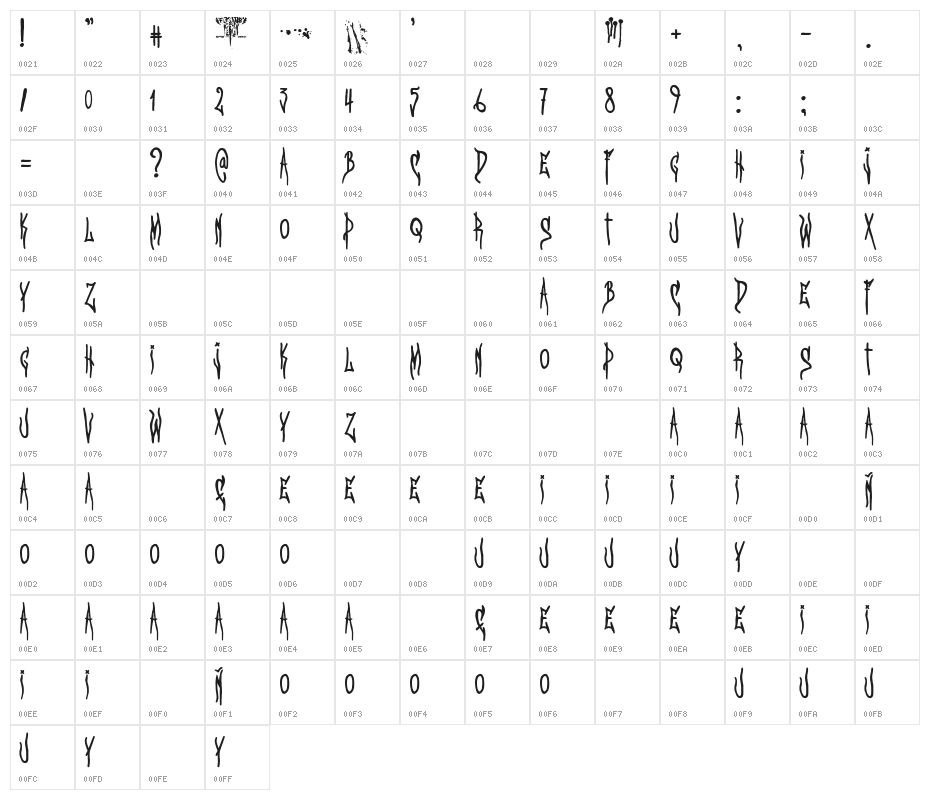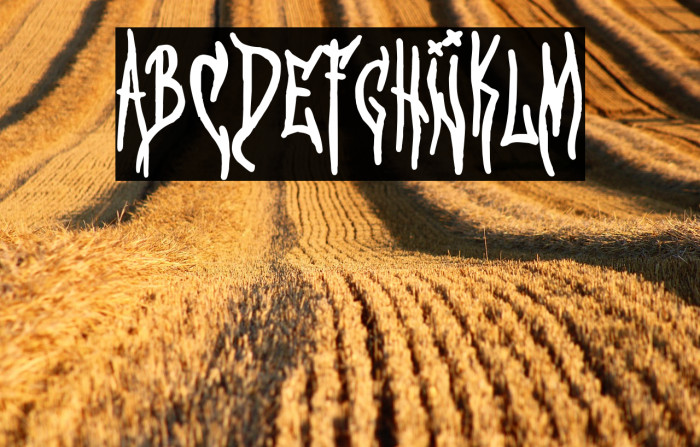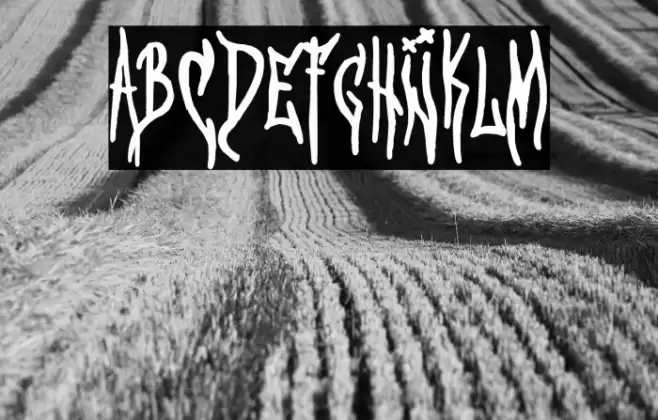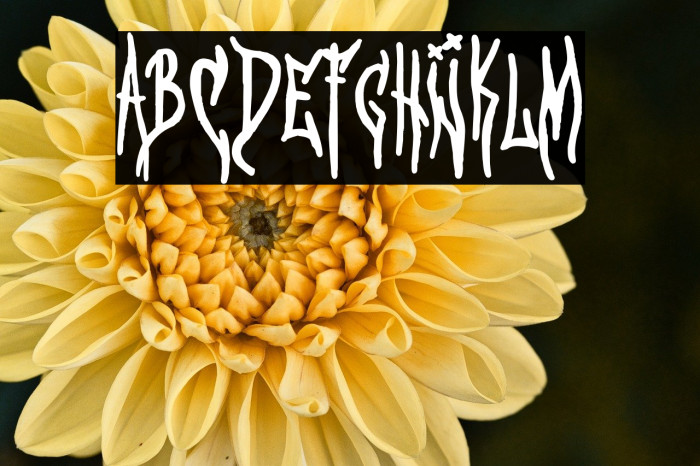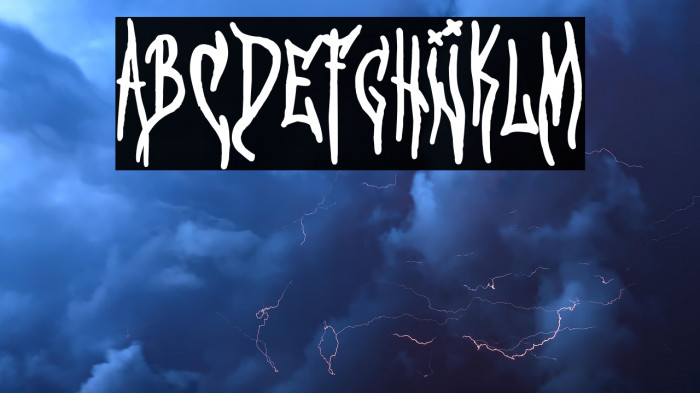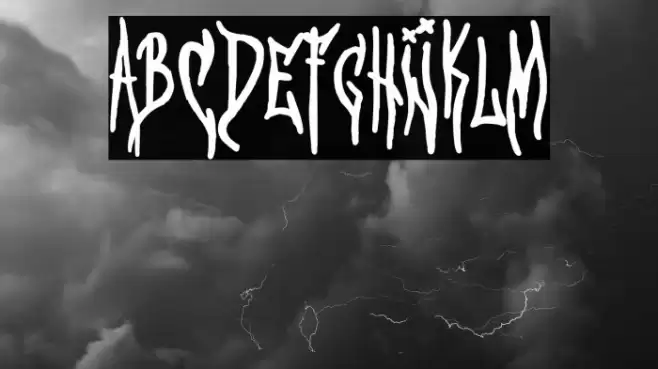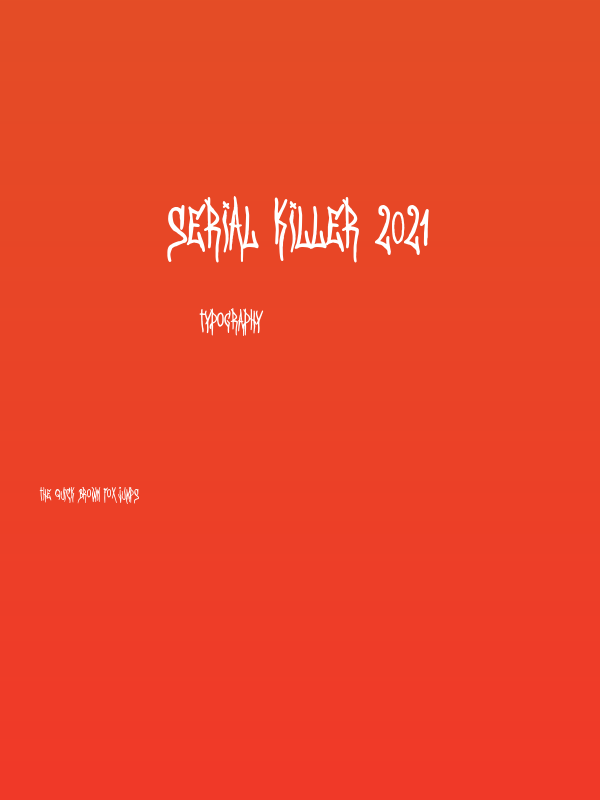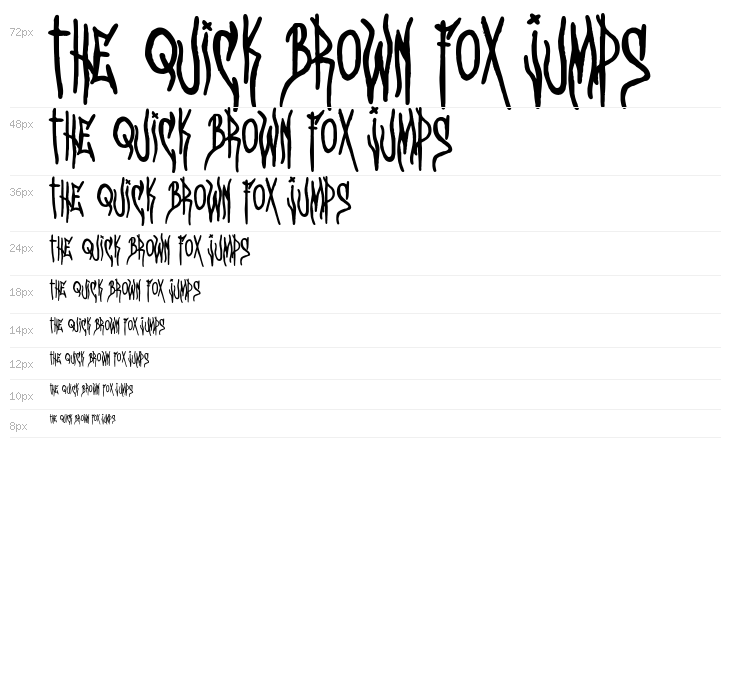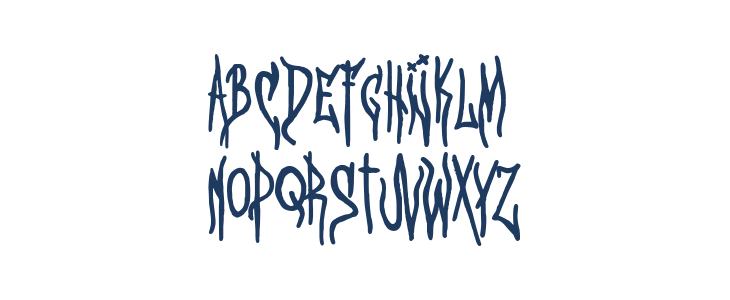
Serial Killer 2021 Font
Serial Killer 2021 Description
This font features a highly stylized, jagged appearance with elongated and irregular strokes, giving it a chaotic and unsettling vibe. The characters are unevenly spaced and vary in height, creating a sense of unpredictability. The uppercase and lowercase letters maintain a consistent, edgy style, while the numbers and special characters follow suit with their sharp, pointed edges. This font evokes a sense of mystery and intensity, making it suitable for projects that require a dramatic and bold statement.
| Proposed Projects | Ideal for horror-themed posters, edgy album covers, or any design needing a dramatic, intense look. |